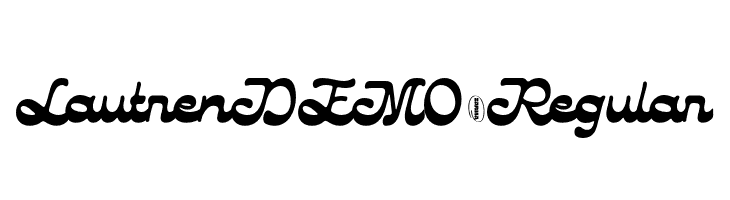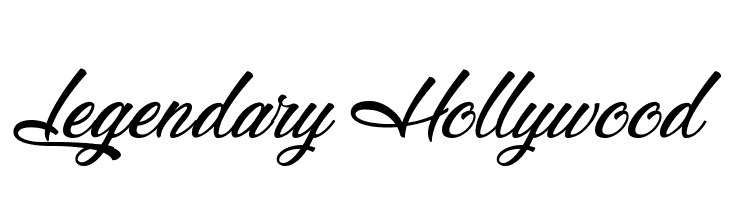
A bold, playful script-like font with smooth, flowing curves and rounded edges.
A playful, handwritten font with smooth curves and a casual style.
An elegant, flowing script font with graceful curves and cursive strokes.
An elegant, cursive script font with intricate loops and flourishes.
A bold, playful font with unique inline details and a retro flair.
A bold, playful font with quirky, dynamic letterforms and exaggerated serifs.
A bold, cursive font with a modern calligraphic style.
A bold, rounded font with a playful and dynamic style.
A classic, elegant script font with vintage Hollywood flair.
A bold, cursive font with dramatic flourishes and a modern calligraphic style.